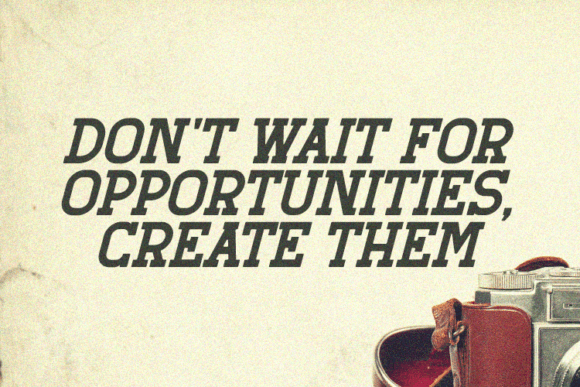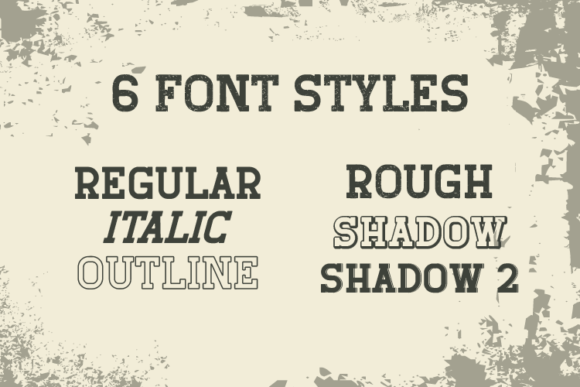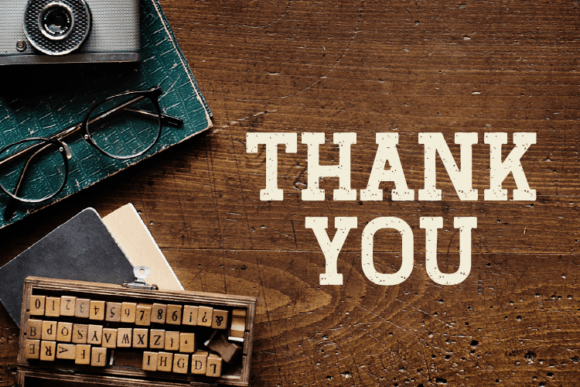
About Retro Grade
Retro Grade is a slab serif font designed to add a touch of nostalgia to any project. This font’s sturdy and bold structure is reminiscent of the fonts commonly used in the mid-20th century, making it perfect for designs that seek to capture the retro or vintage vibe.
Whether you’re looking to create a vintage-inspired logo or a retro-style poster, Retro Grade font will help you achieve the perfect look.